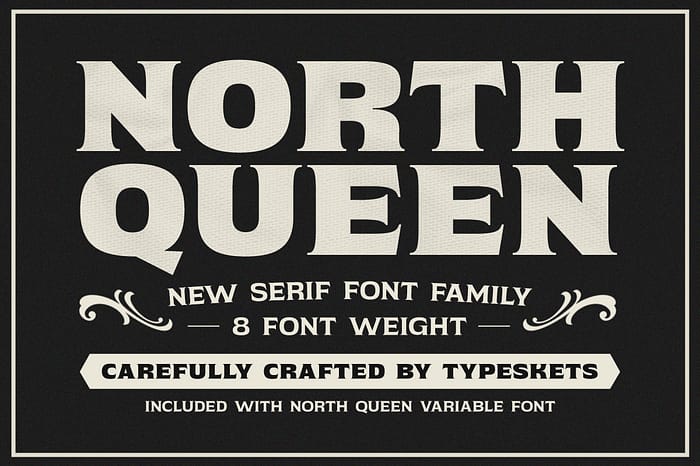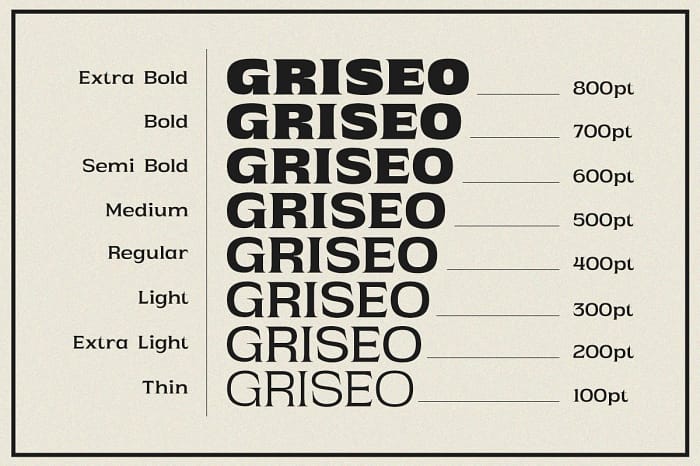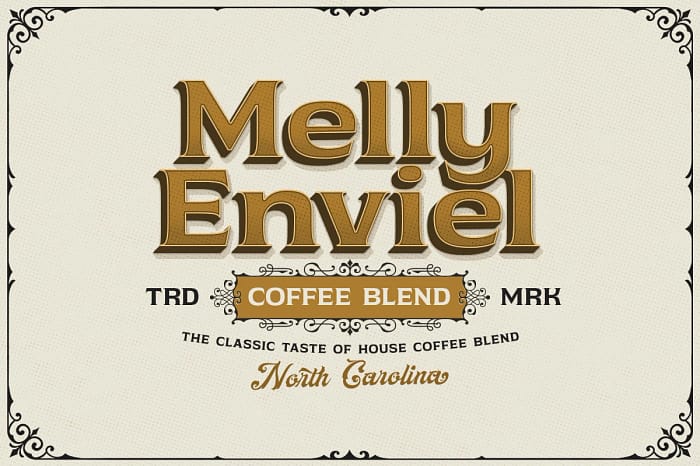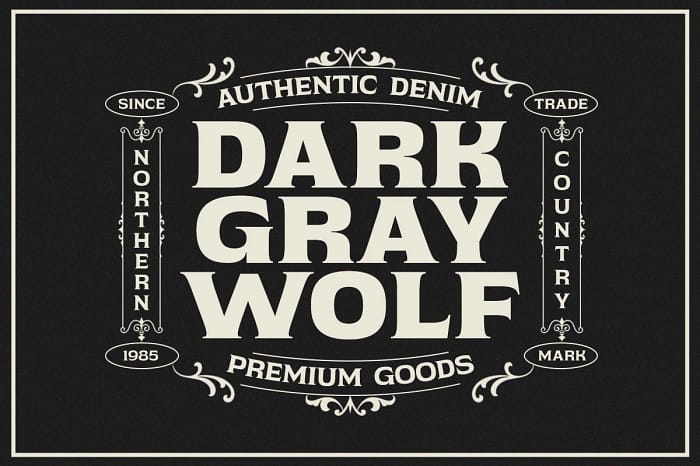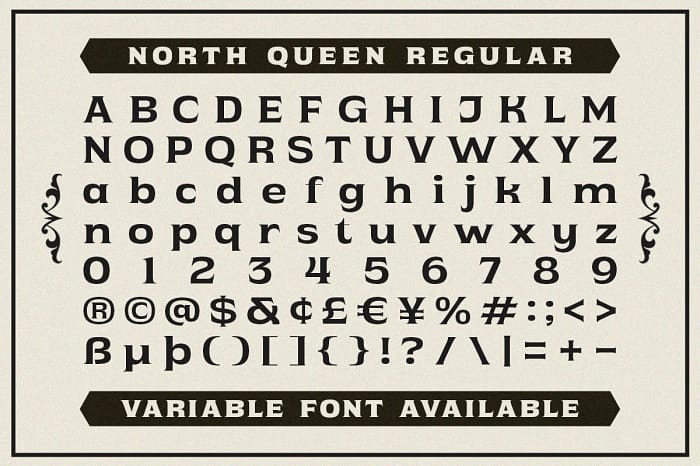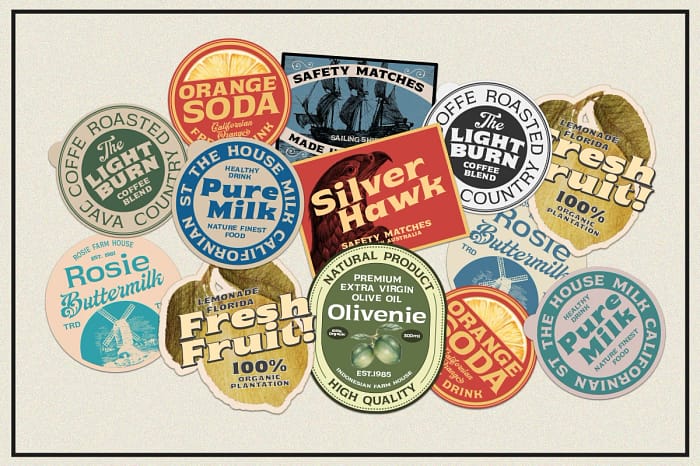
North Queen is a Variable font and Font Family with 8 weights, starting from thin to extra bold, this font belongs to the classic serif nuanced font, very suitable for making label designs, posters, headlines, and many more, you might be able to add this font in your font collection